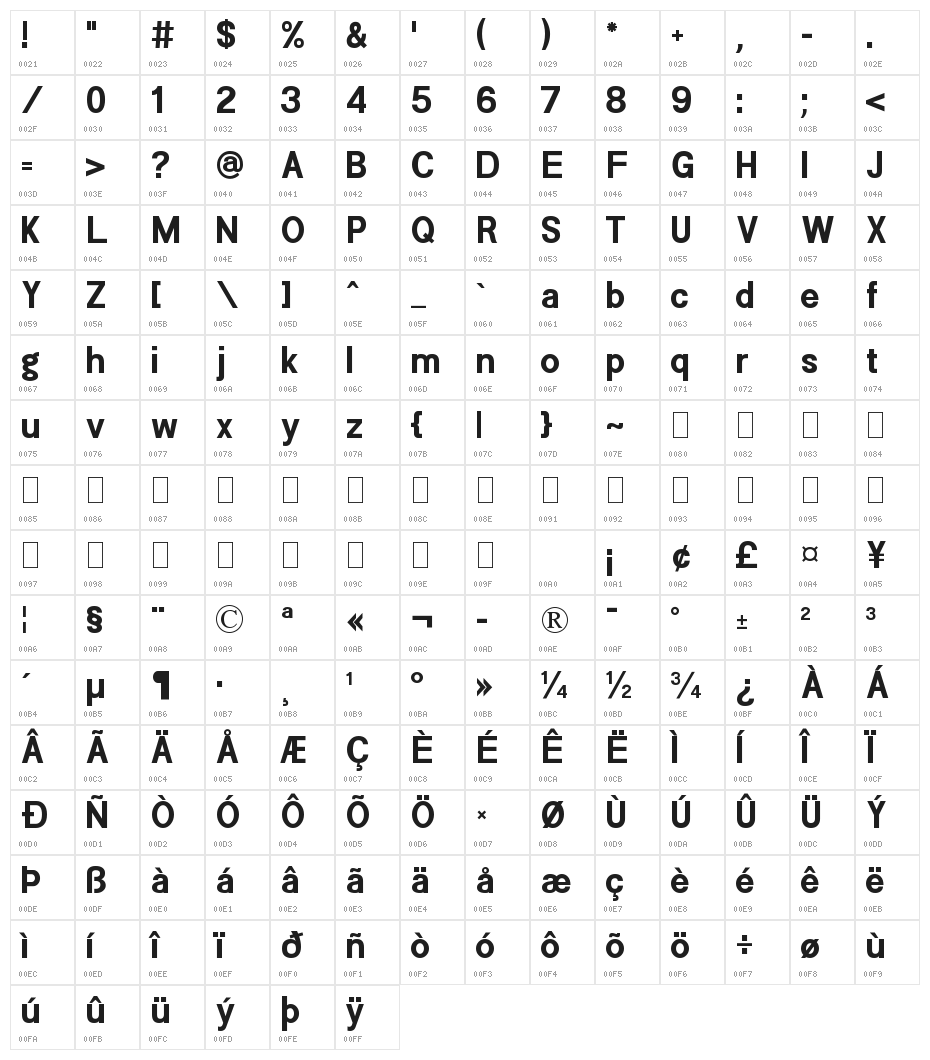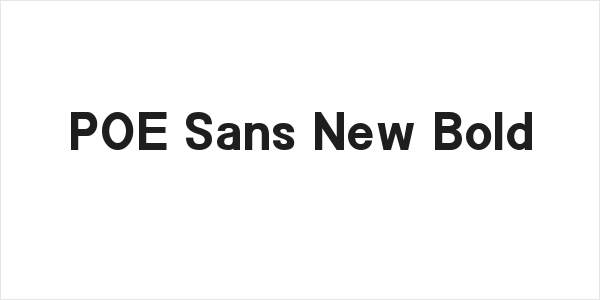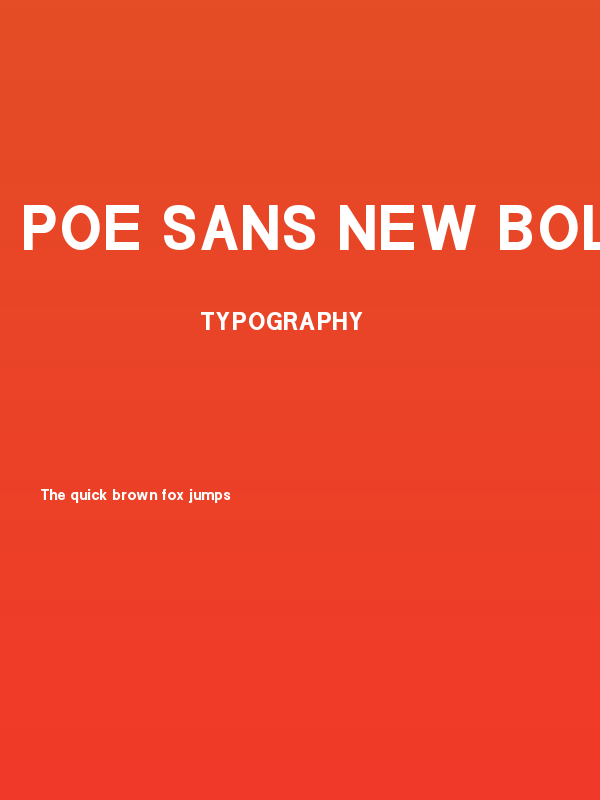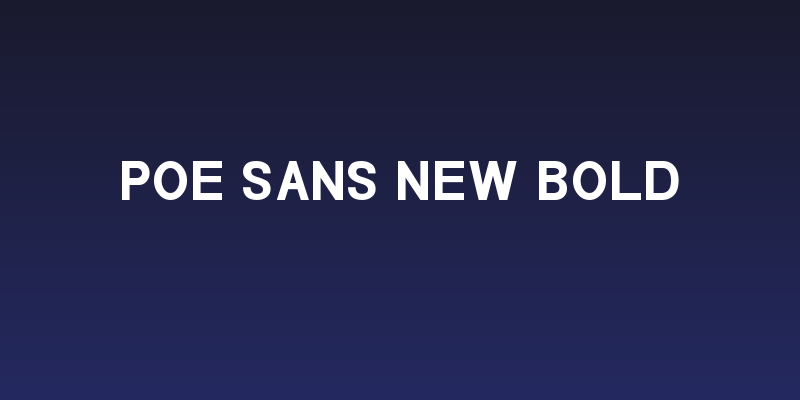
POE Sans New Bold Font
POE Sans New Bold Description
This typeface is a bold, sans-serif font characterized by its clean lines and modern aesthetic. The letters are evenly spaced, providing a balanced and harmonious appearance. The uppercase and lowercase letters maintain a consistent weight, ensuring readability across various sizes. The numerals are clear and distinct, making them suitable for both digital and print media. Special characters are well-defined, enhancing the font's versatility. Its bold nature makes it ideal for attention-grabbing headlines and impactful designs.
| Use Case | Headlines, Logos, Advertising |
| Proposed Projects | Ideal for branding, advertising, headlines, and digital media where a strong, modern presence is required. |